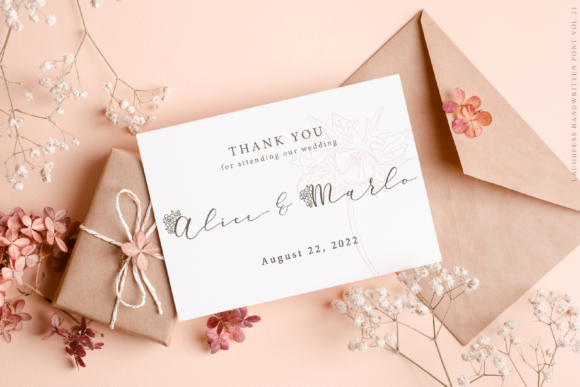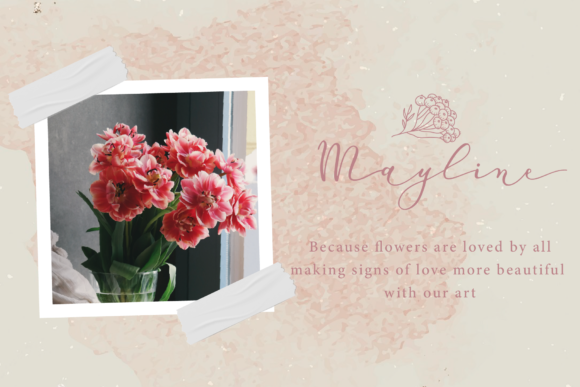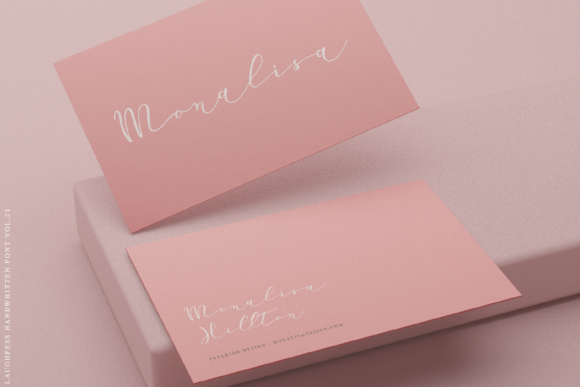
Introduction to Laughfess Font
Laughfess is a beautiful and light handwritten font with a unique feel and a stunning impact.
It will add a luxury spark to any design project that you wish to create This font is PUA encoded which means you can access all of the amazing glyphs and ligatures with ease.
Key Features of Laughfess Font
Why Choose Laughfess Font?
Laughfess Font offers exceptional quality and versatility, making it a valuable addition to your design toolkit. Whether you’re creating for personal projects or commercial use, Laughfess Font delivers professional results.